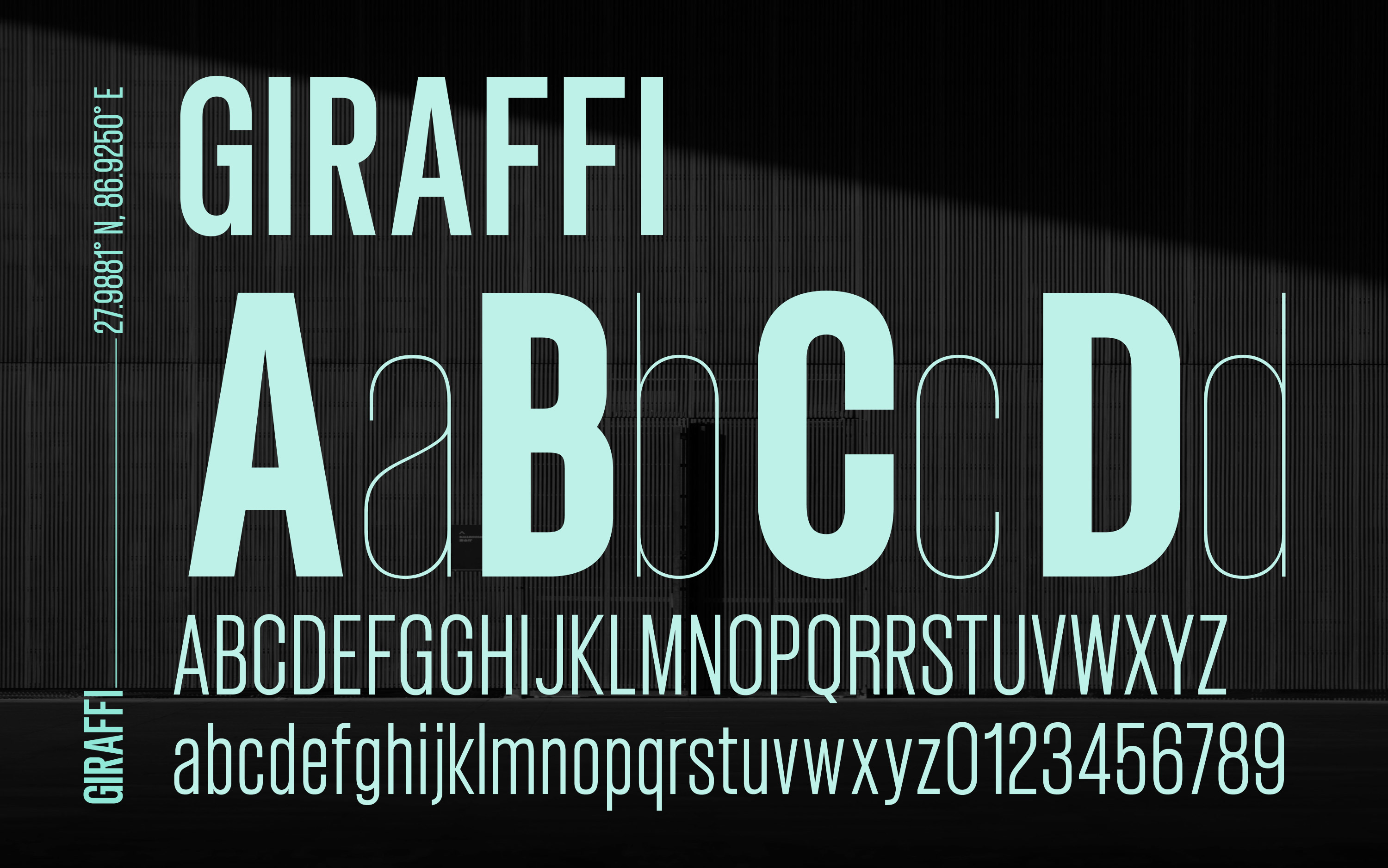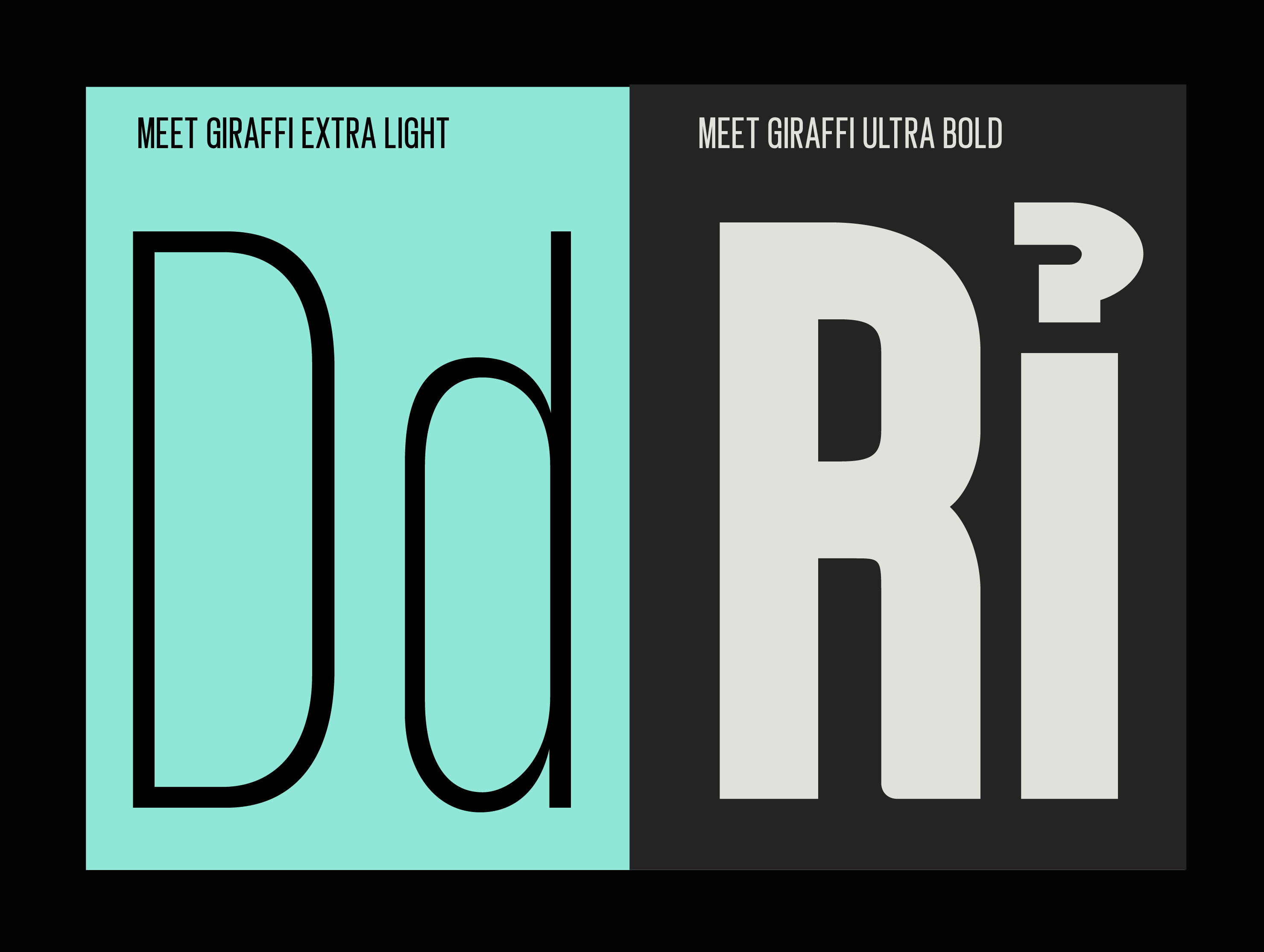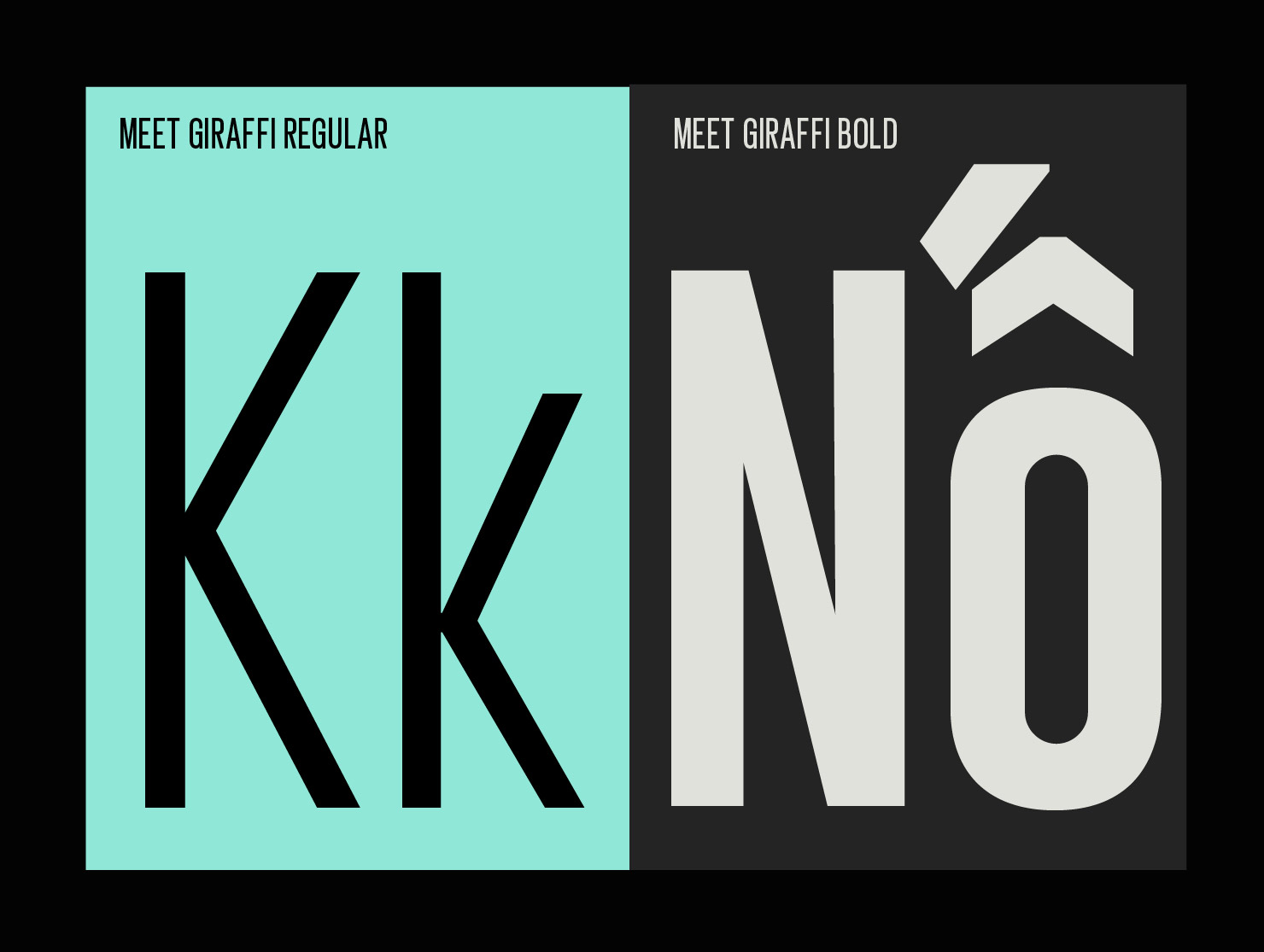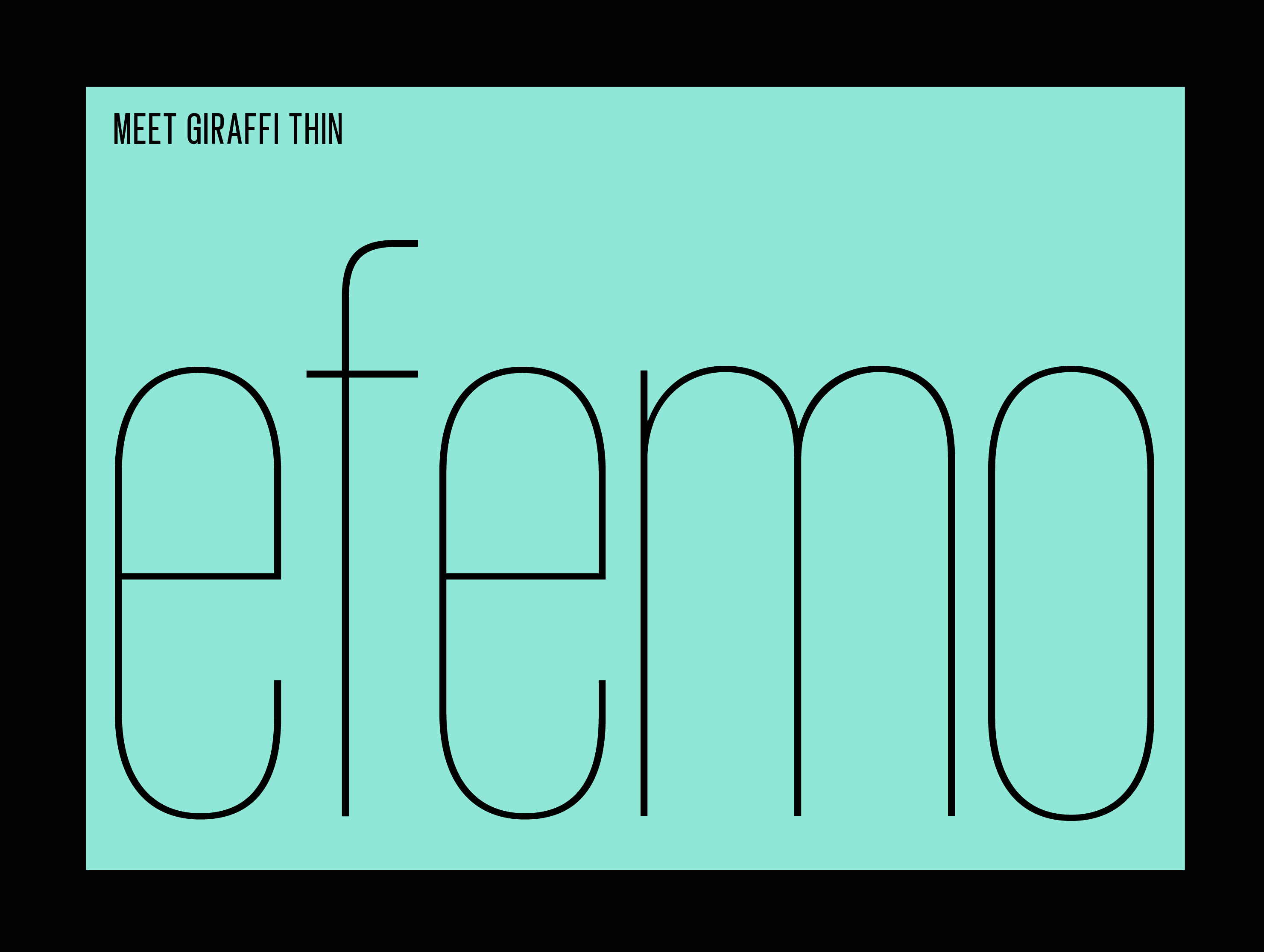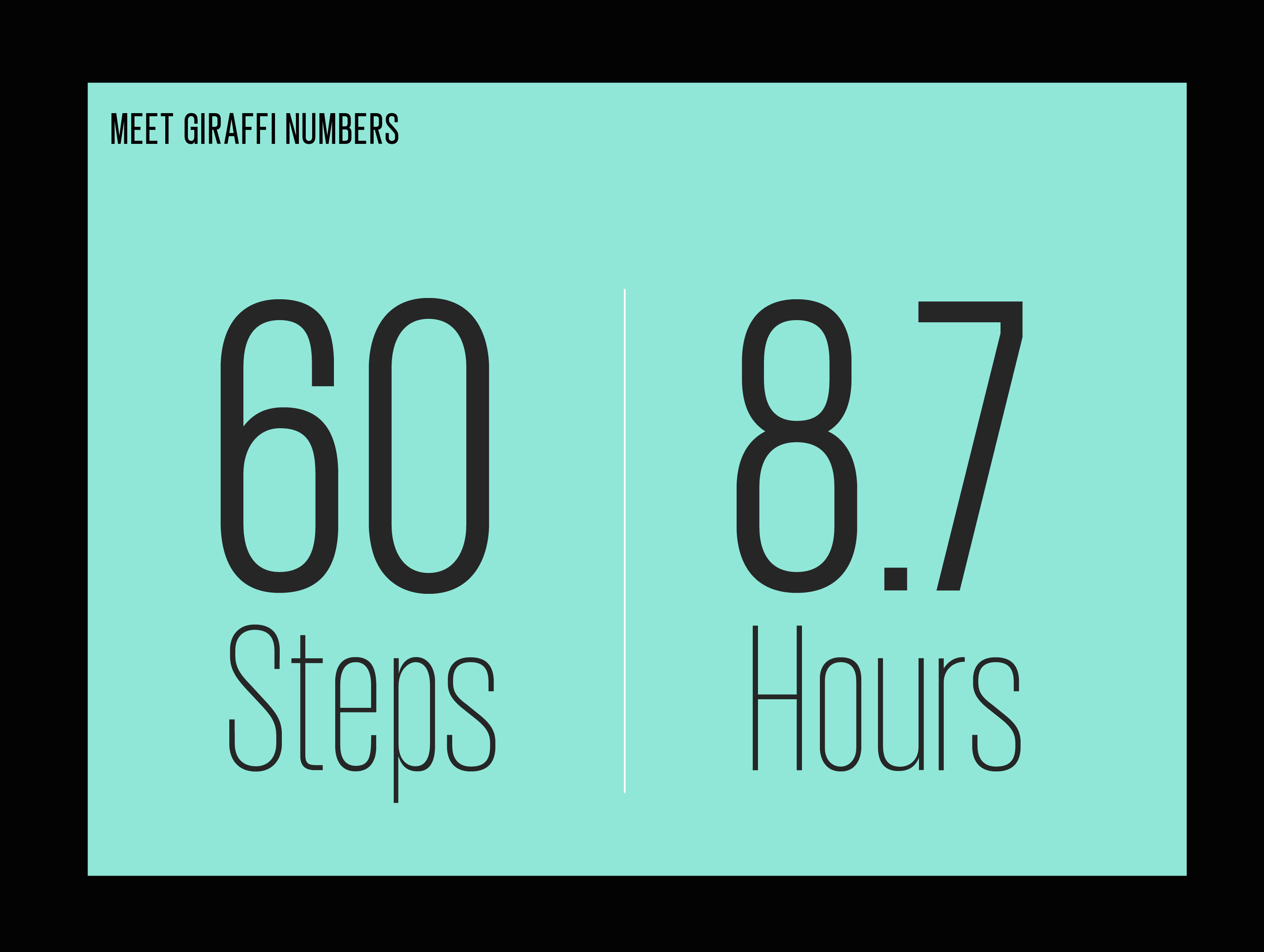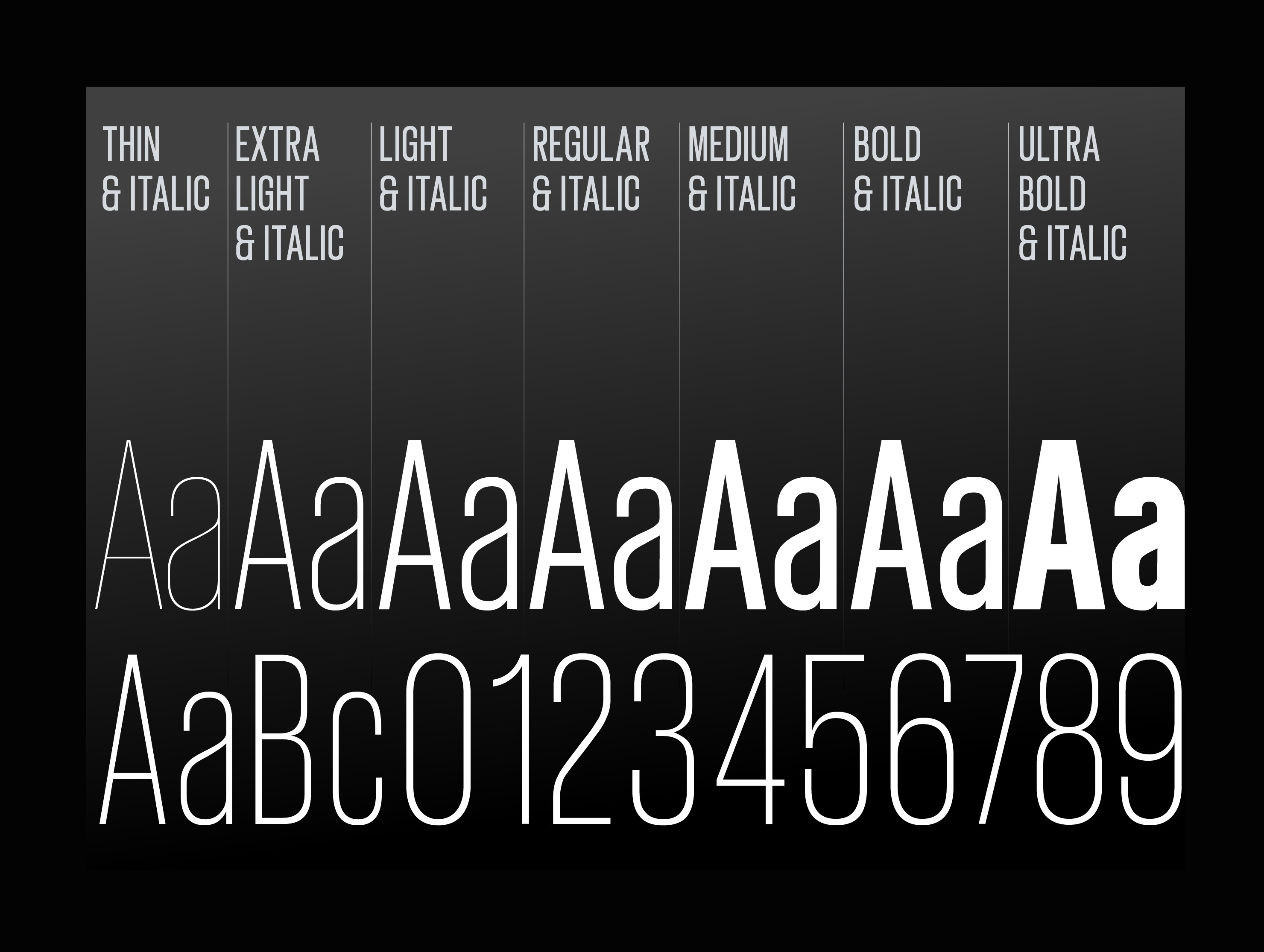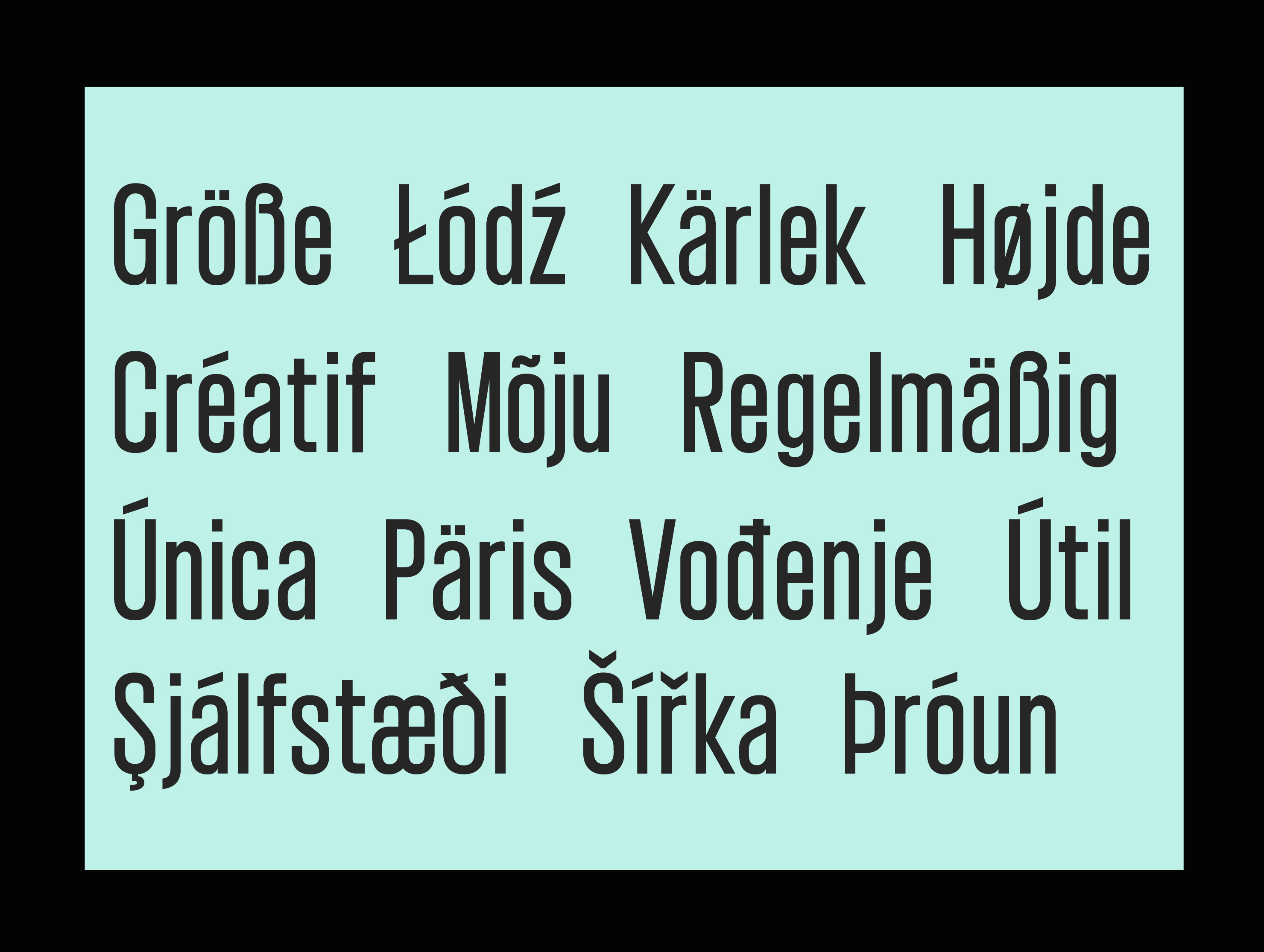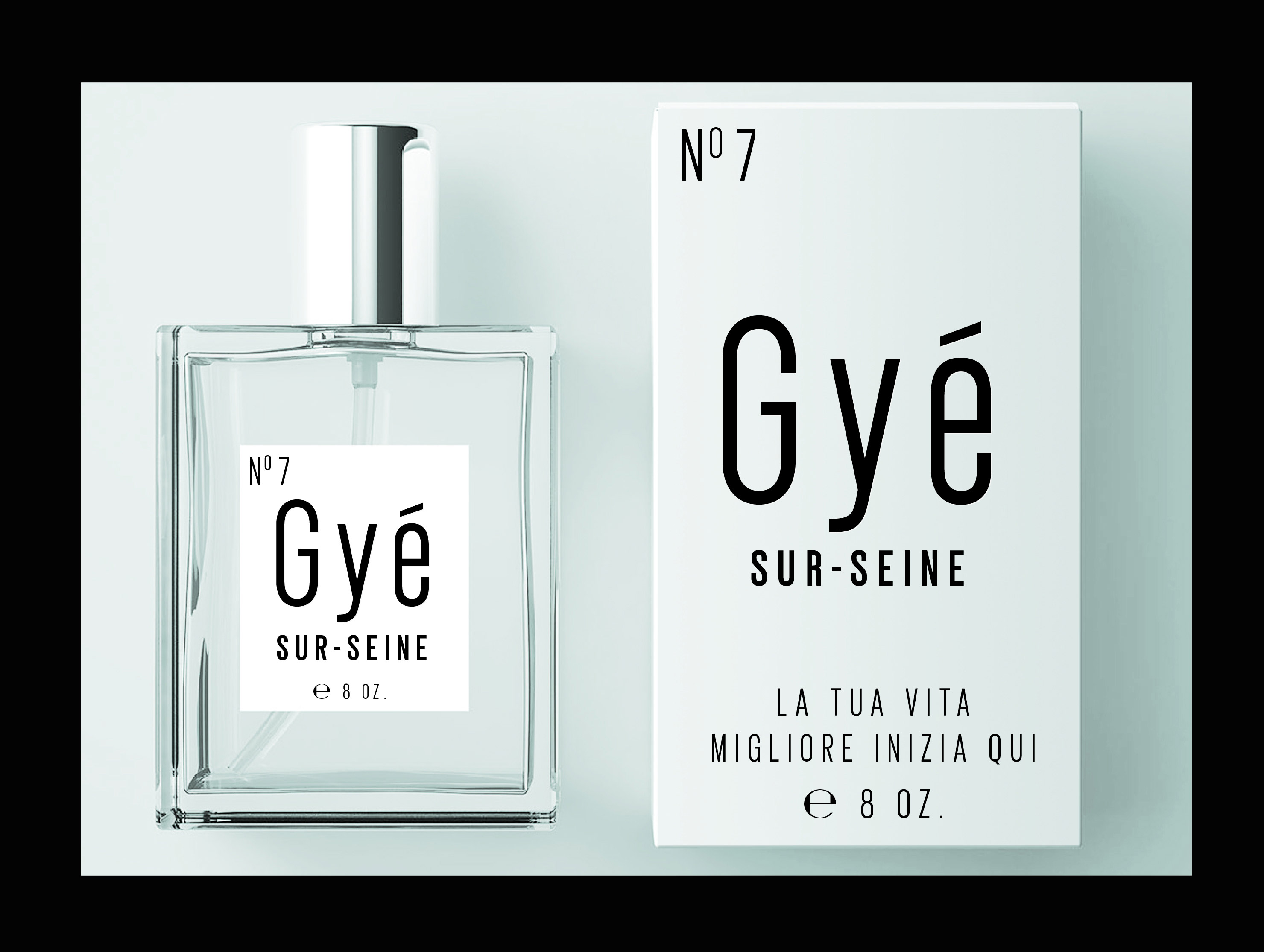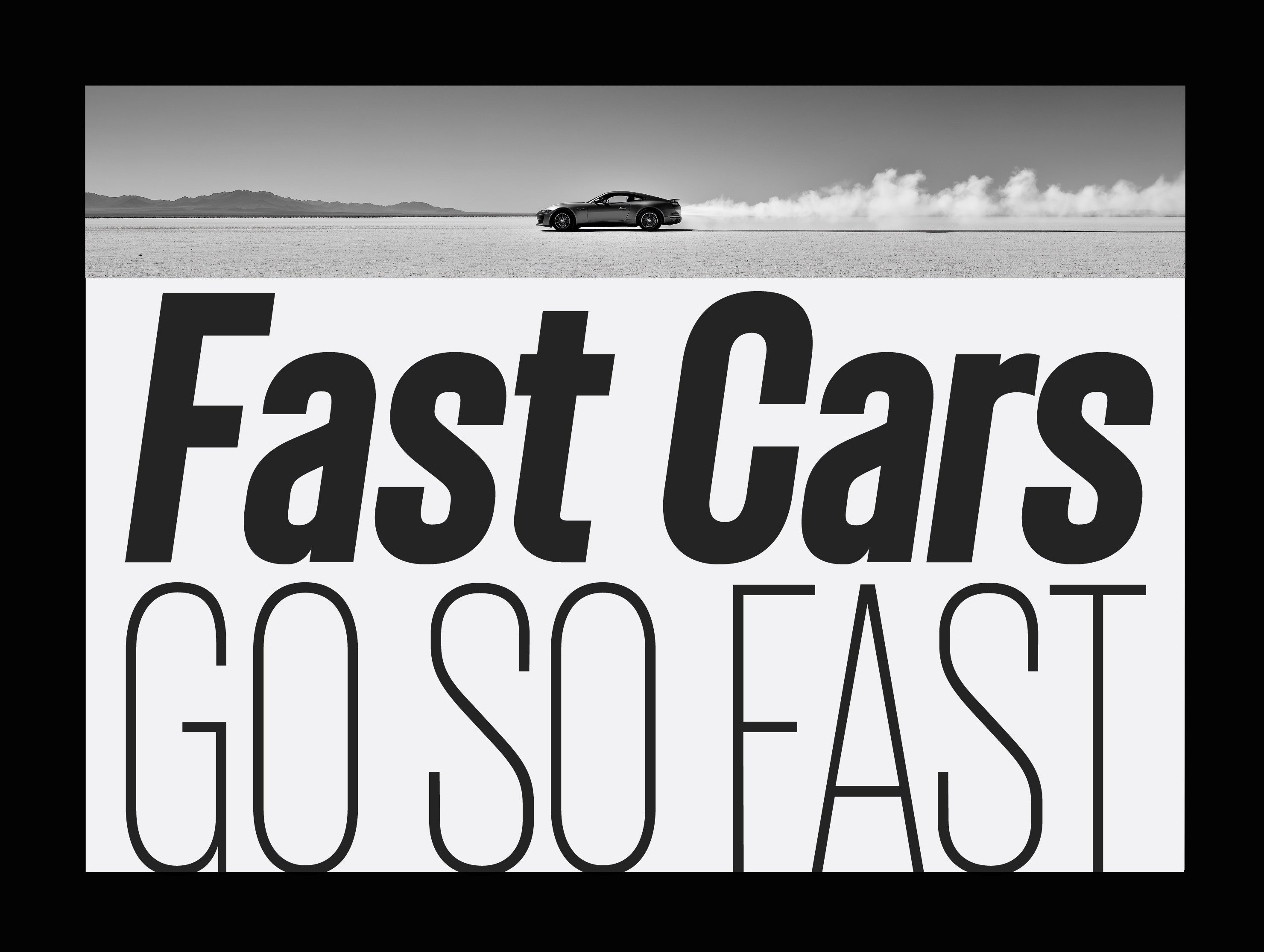
Giraffi Condensed
NEW CONDENSED FONT
Giraffi condensed font
SEVEN WEIGHTS FROM THIN TO ULTRA BOLD
Swiss style poster font
MULTILINGUAL + SPECIAL CHARACTERS
Designer Web Font
BIG IMPACT ON SMALL SCREENS
Condensed poster font
CONDENSED MARKETING FONT
Designer condensed font
INTERNATIONAL DESIGN SYSTEM INTEGRATION
Swiss style poster font
CONDENSED LAYOUT DESIGN FONT
Designer Web Font
SPACE-EFFICIENT PRESENTATON FONT
Swiss style poster font
CONDENSED LAYOUT DESIGN FONT
Designer condensed font
STYLISH AND SPACE-EFFICIENT
Swiss style numbers
COOL CONDENSED FONT NUMBERS
Designer Condensed Font
TALL CONDENSED FONT
Modern typography design
MODERN CONDENSED FONT DESIGN
Designer Condensed Font
TALL CONDENSED FONT
Modern typography design
MODERN FONT DESIGN